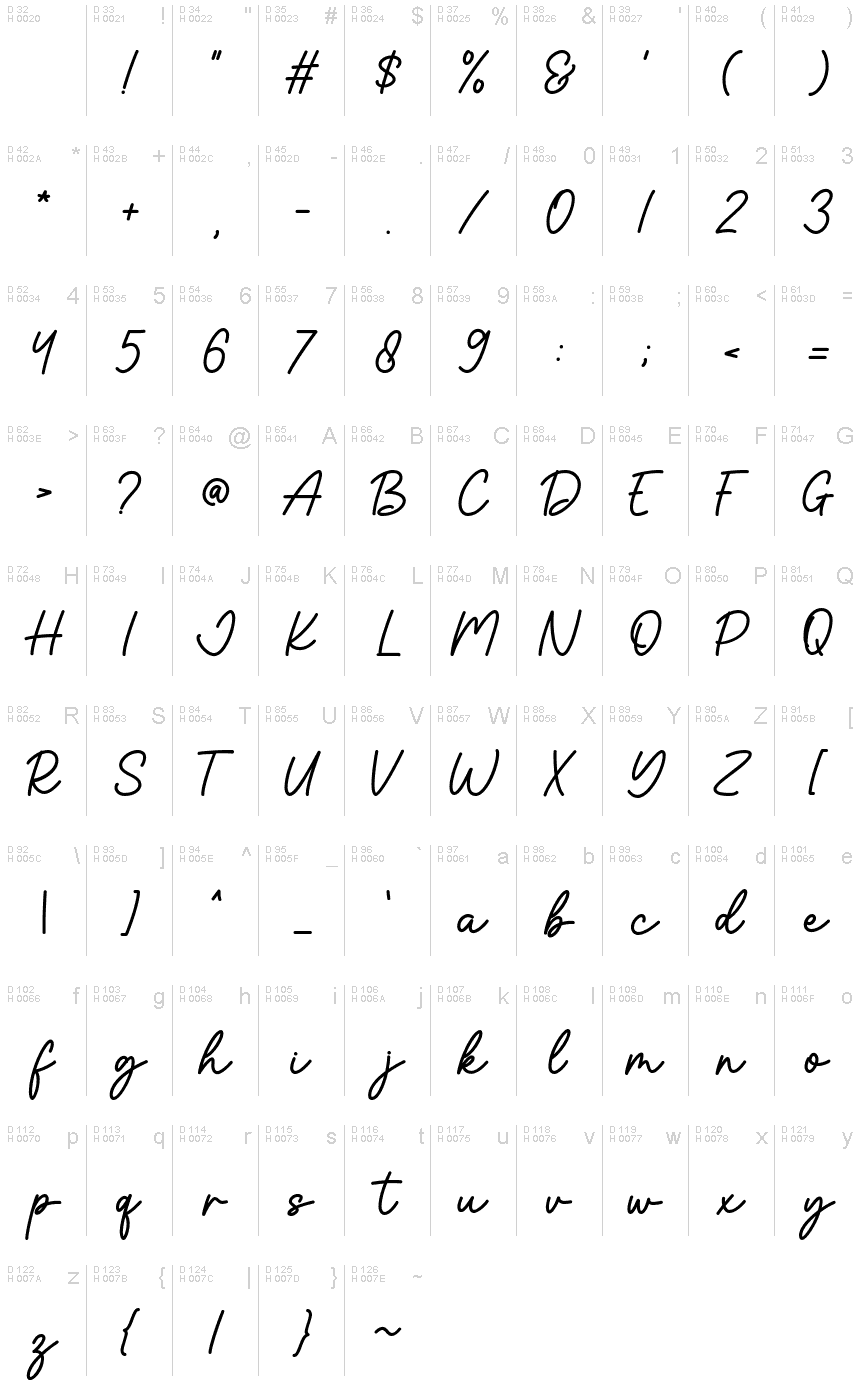
Danita
Danita, a stunning semi-light handwritten font designed by Graphix Line Studio that is perfect for projects that require a touch of elegance and personalization. With its unique style, Danita adds a charming and sophisticated feel to any design, making it ideal for branding materials, invitations, greeting cards, social media posts, and much more. The flowing curves and delicate strokes of this font make it suitable for everything from wedding invitations to product packaging. So whether you're designing for a romantic occasion or simply want to add some personality to your marketing materials, Danita is the perfect choice!